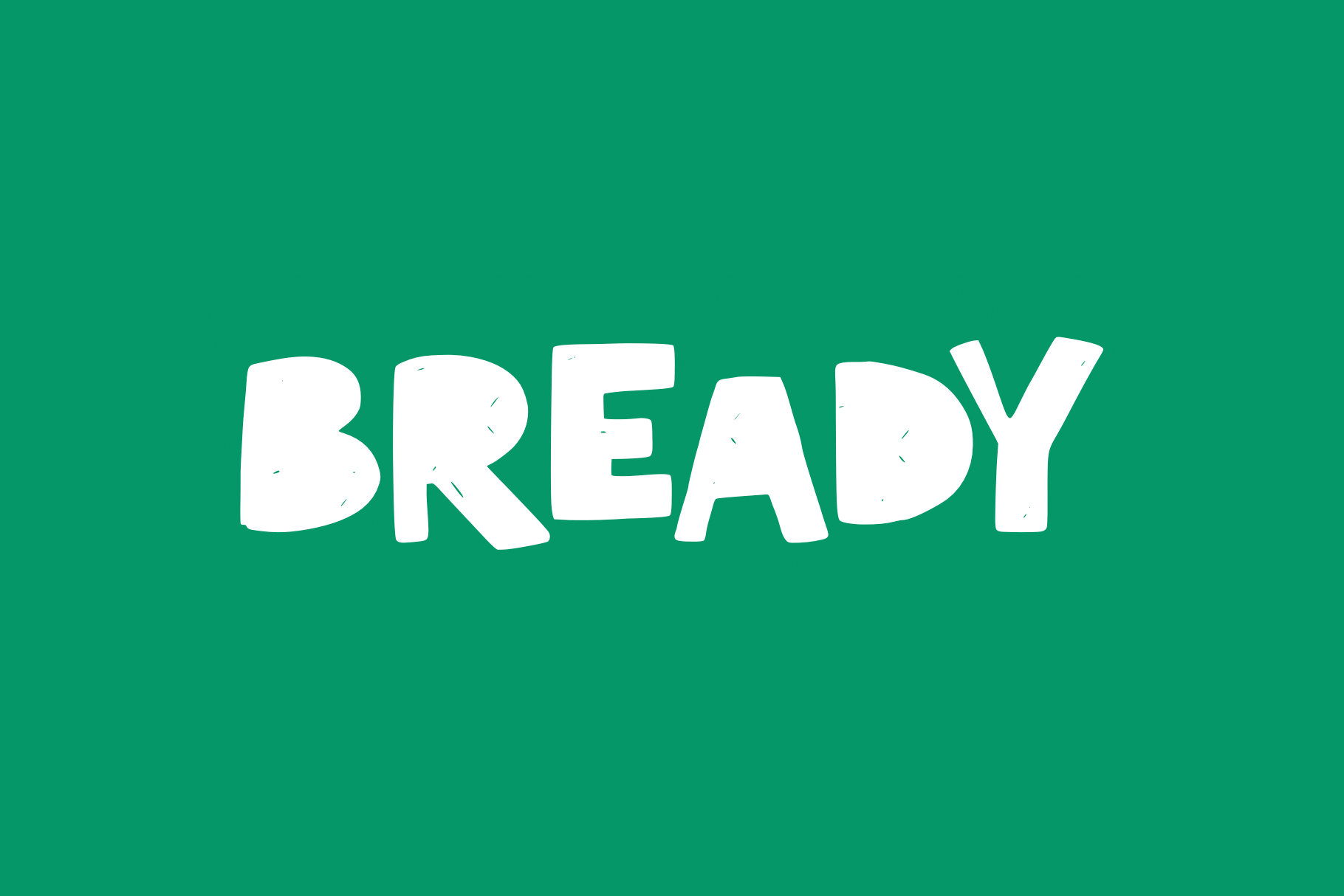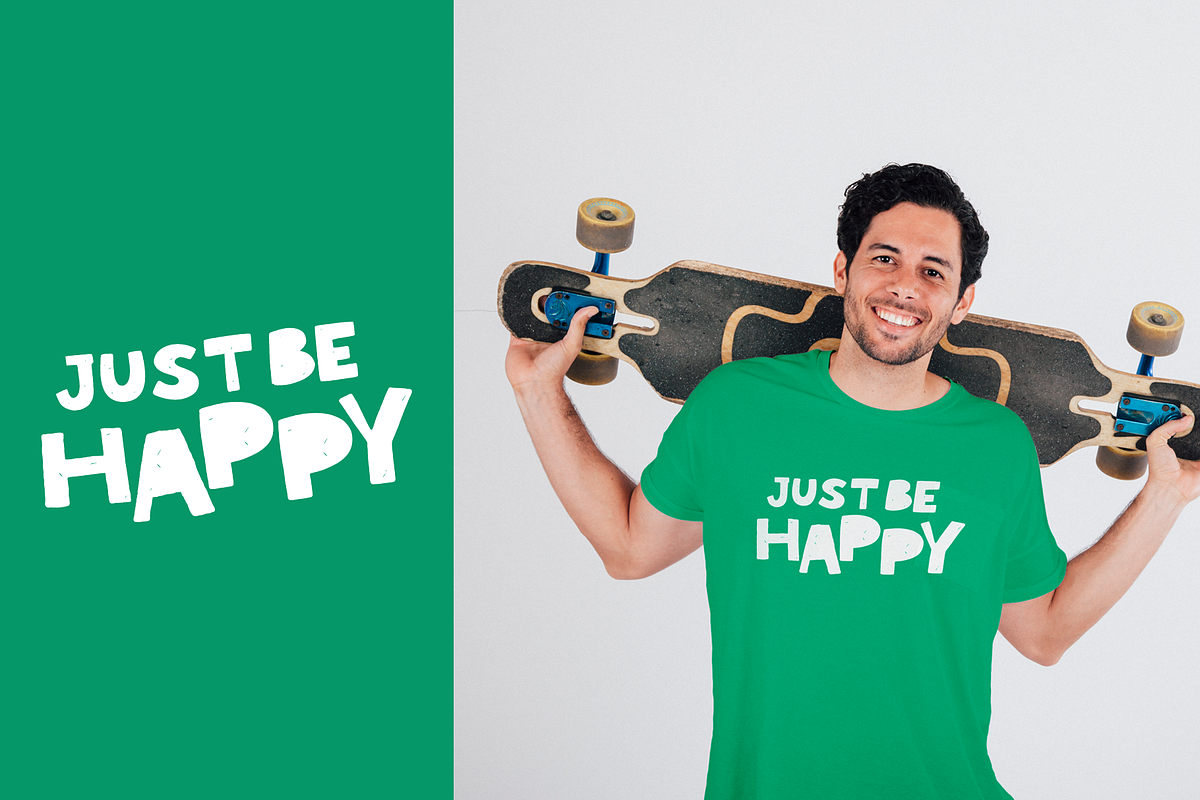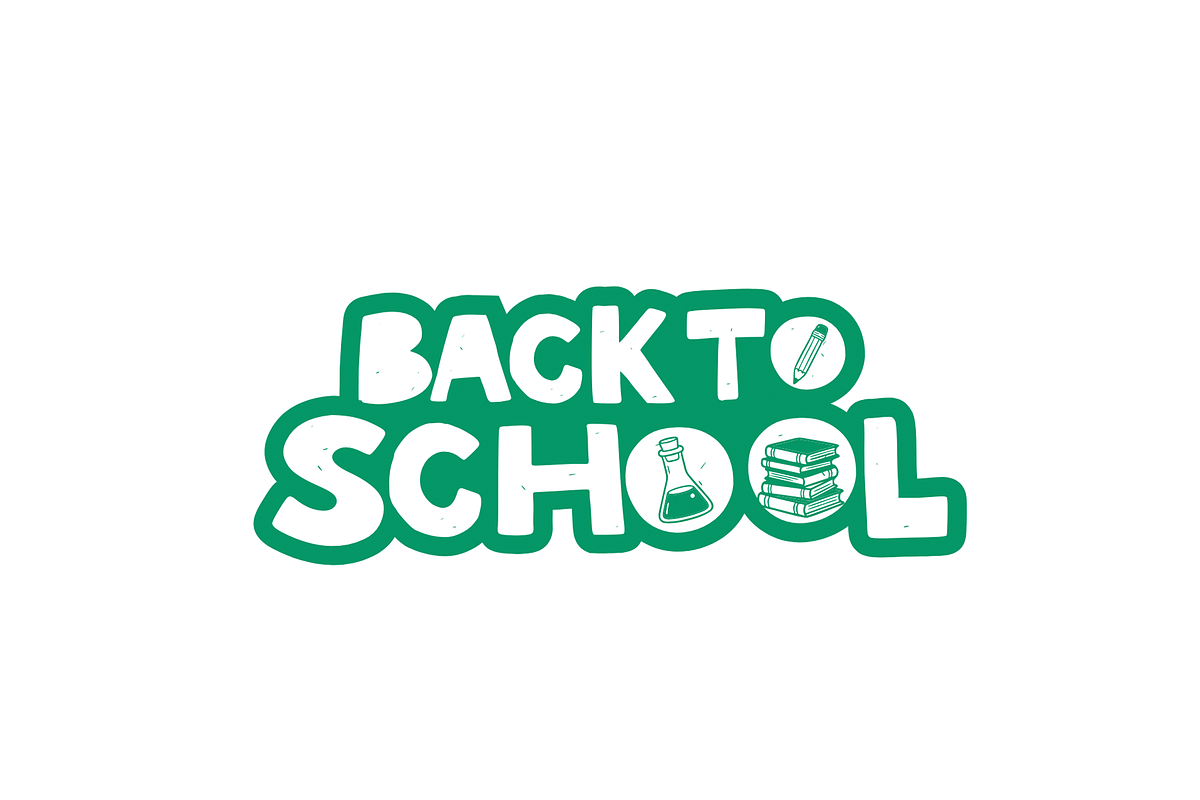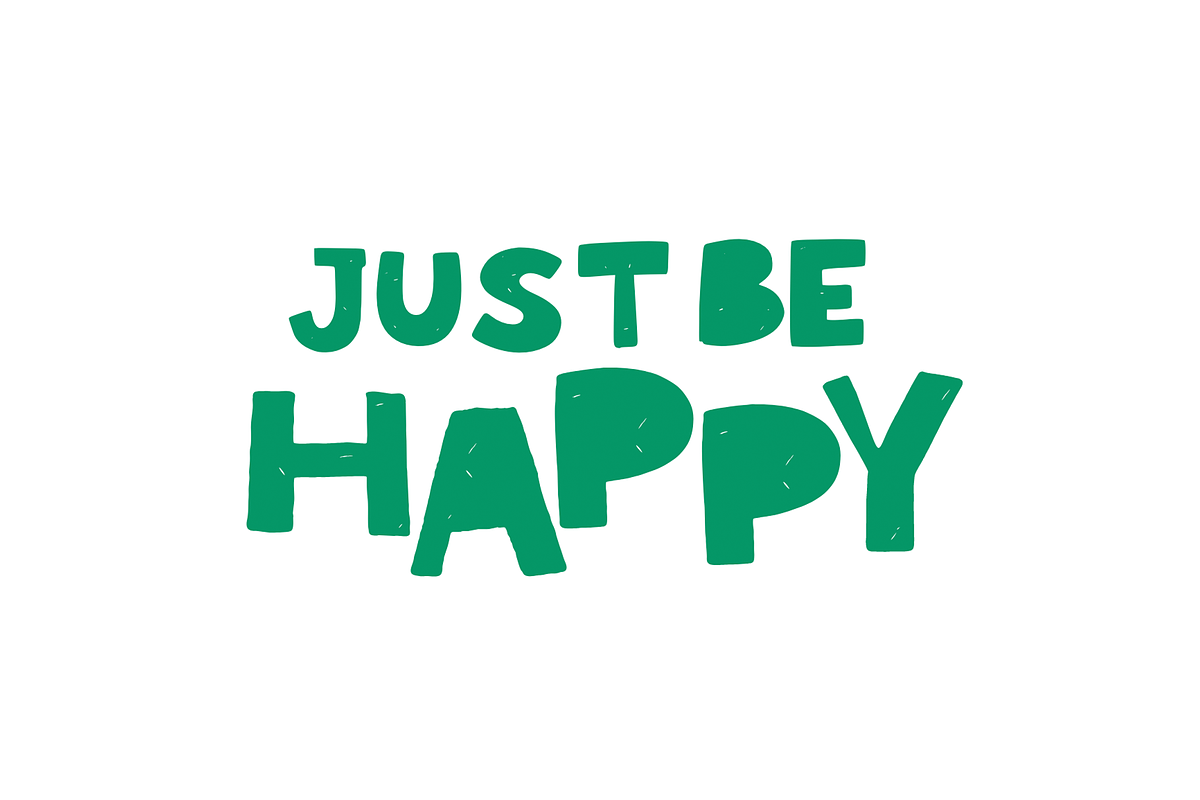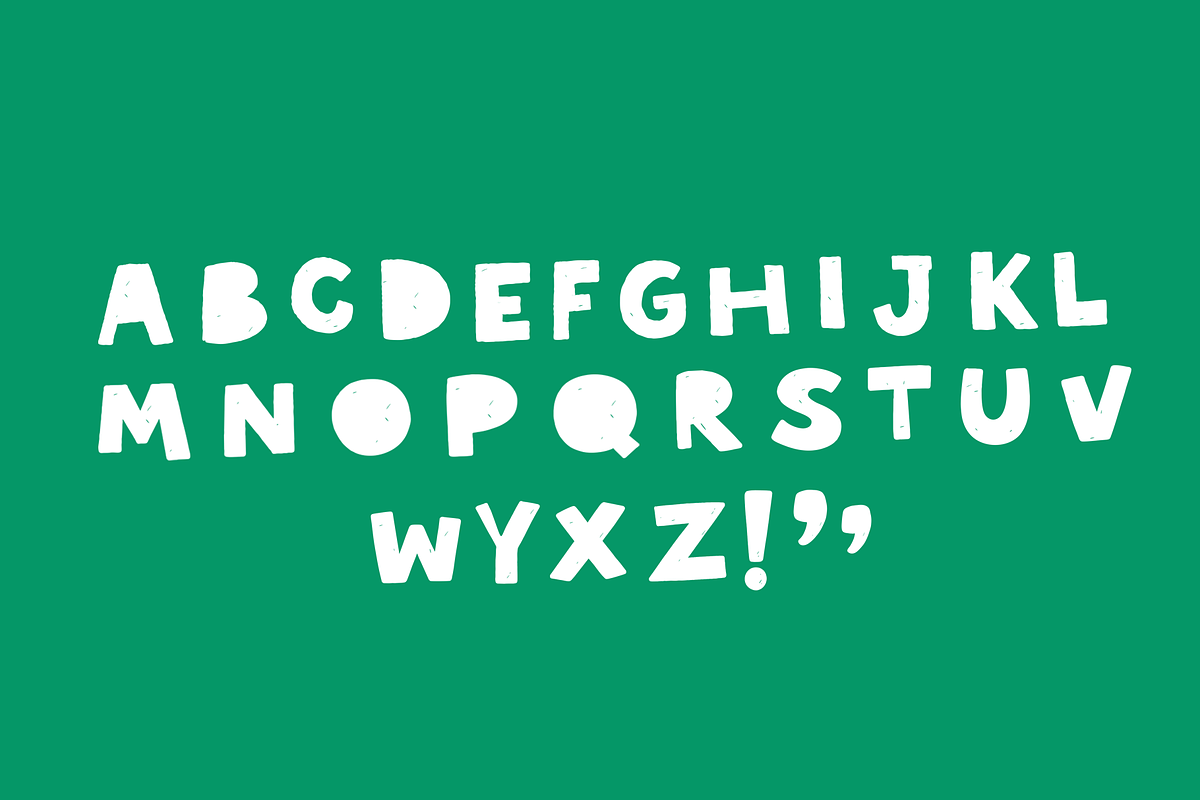
Bready – Handmade Display Font
Bready is a playful handmade display font designed to bring warmth, personality, and creativity into your designs. With its bold shapes, imperfect strokes, and organic feel, Bready captures a human touch that works beautifully across modern branding, social media, packaging, and lifestyle visuals. Perfect for designers who want to create eye-catching and friendly designs without losing simplicity.
Perfect for
- Branding & logos
- Social media graphics
- Posters & quotes
- Packaging design
- T-shirt designs
- Kids & lifestyle projects
Bring your designs to life with a font that feels natural, playful, and full of character.